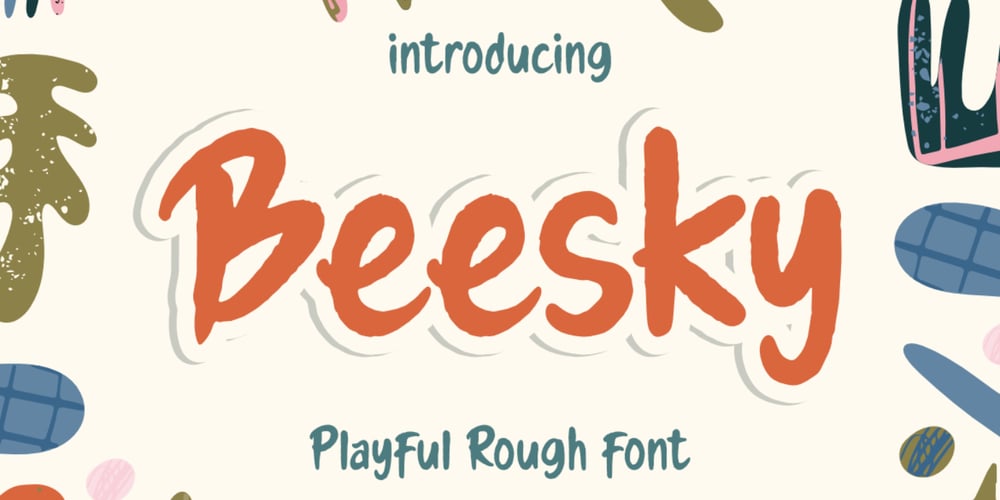
Beesky Font Family was designed by Bayu Aji Fais Mursid and published by Bayuktx. Beesky contains 1 styles and family package options. Beesky Playful Rough Font, This font is made with a high premium quality level which you can use as flyers, quotes, posters, banners, packaging, merchandise, logotypes and much more.FEATURES :* Uppercase* Number* Punctuation* Multilingual* PUA Encode* OpentypeFILES INCLUDED :* BeeskyThank you